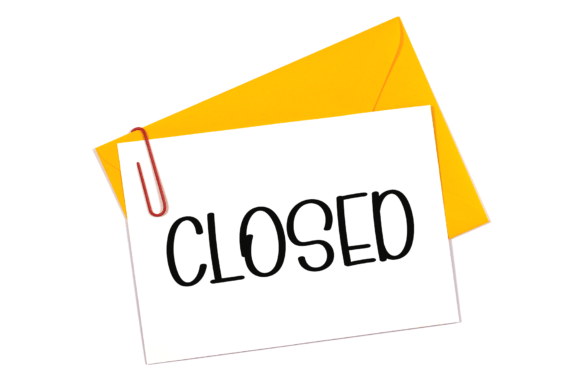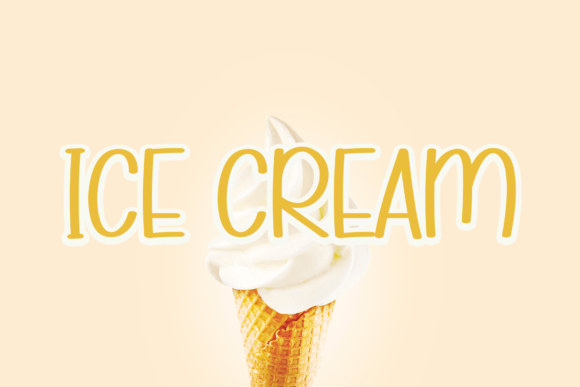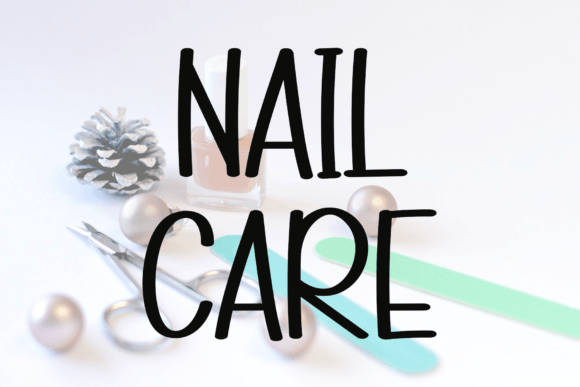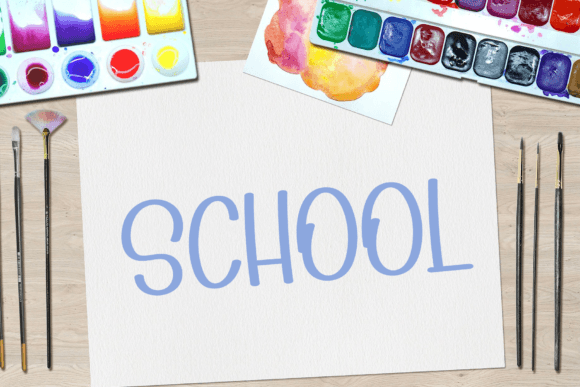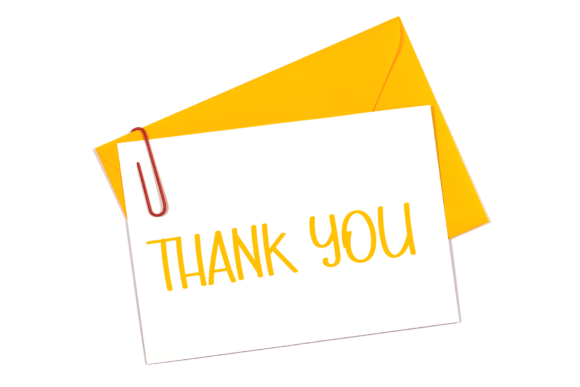
Open Font
**Open**: *Where Trendiness Meets Timeless Elegance*
Open is more than just a font; it’s a trendy handwritten typeface that effortlessly blends contemporary flair with impeccable form, drawing inspiration from timeless classic calligraphy. This font brings a sense of elegance and class to your design projects, making it a versatile choice for a wide range of creative needs.
What sets Open apart is its remarkable ability to combine trendiness with timeless elegance. The font’s meticulously crafted characters exude an air of authenticity and sophistication, making it an ideal choice for projects that require a touch of modernity and a high level of visual appeal. Open is the font that can effortlessly enhance your designs, ensuring they exude a unique blend of elegance and trendiness.
Open strikes the perfect balance between modern aesthetics and classic elegance, making it a versatile and invaluable choice for projects that aim to make a statement.
In branding and design projects, Open adds a unique sense of character and sophistication, making your content more memorable and enchanting. For product labels, advertisements, and packaging, the font’s impeccable form enhances the visual appeal of your creations, making them more captivating and refined. Whether you’re working on digital or print projects, Open brings an air of elegance and class to your creative work.
One of Open’s most remarkable qualities is its adaptability. It can seamlessly transition from a formal and polished tone to a more expressive and artistic one, making it suitable for a wide range of creative applications. Its ability to convey trendiness and timeless charm ensures that it remains a cherished choice for designers and creators across diverse industries.
In summary, Open is more than just a font; it’s a design asset that masterfully combines trendiness with timeless elegance. Its impeccable characters and enduring charm position it as an indispensable tool for anyone seeking to infuse their creative projects with a touch of sophistication and modernity. Embrace the trendiness and timeless elegance of Open, and watch your designs come to life with ease and artistic flair, leaving a lasting impression and captivating your audience with its classic and refined presence.